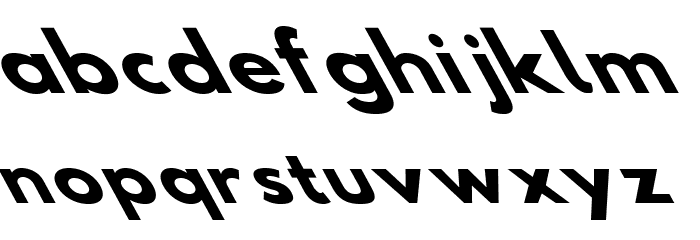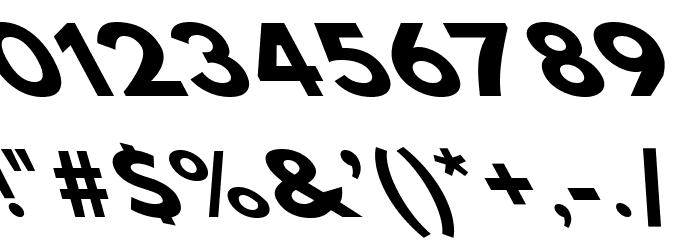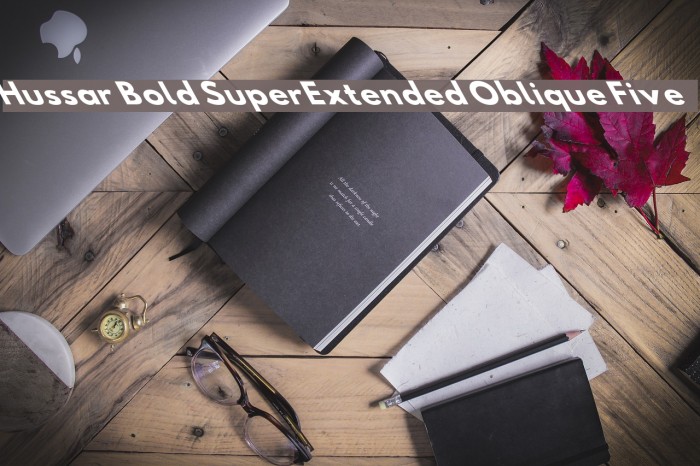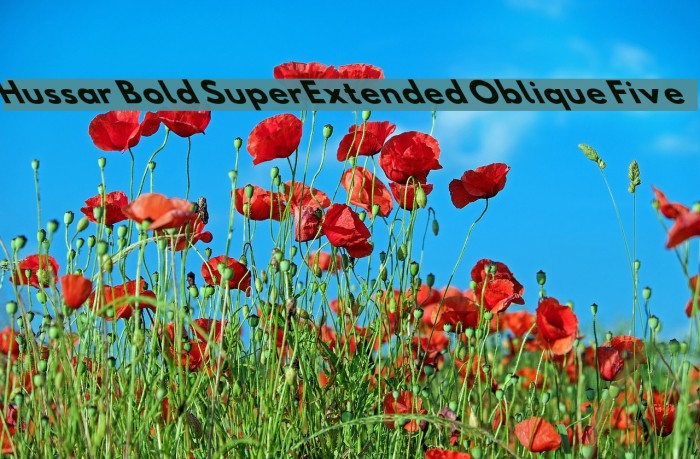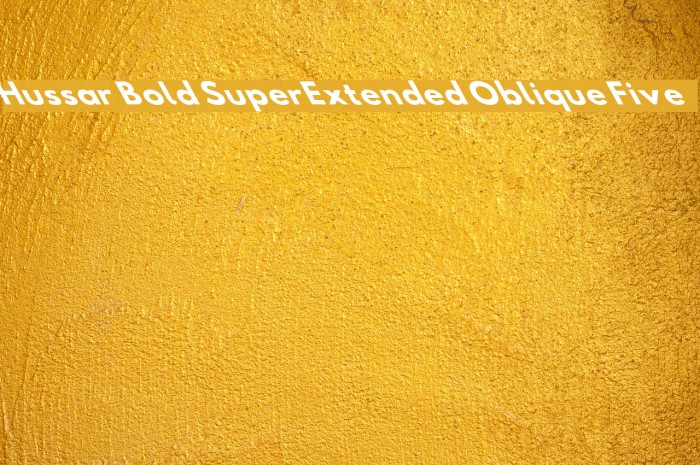
Hussar Bold SuperExtended Oblique Five Font
This font features a bold and dynamic style with a strong oblique slant, giving it a sense of movement and energy. The characters are super extended, providing a wide and impactful appearance. The strokes are thick and consistent, contributing to its boldness, while the overall design maintains a modern and sleek aesthetic. The uppercase and lowercase letters are well-defined, with a slight geometric influence, making them highly legible. The numbers and special characters are equally bold and maintain the same oblique and extended characteristics, ensuring uniformity across all glyphs.
A bold, super extended, and oblique font with a modern and dynamic style.
- Proposed Projects: Ideal for headlines, posters, branding, and any design projects requiring a strong and impactful typeface.